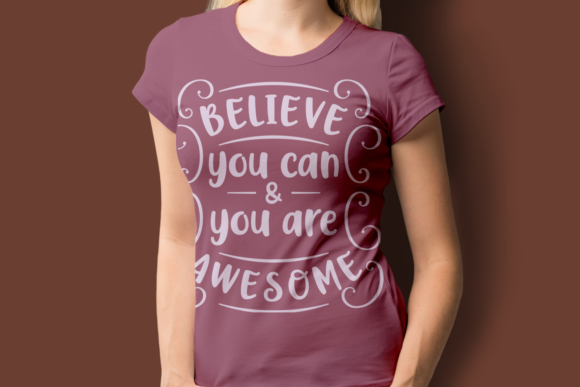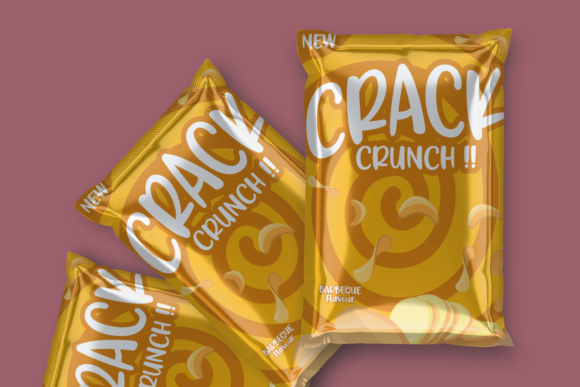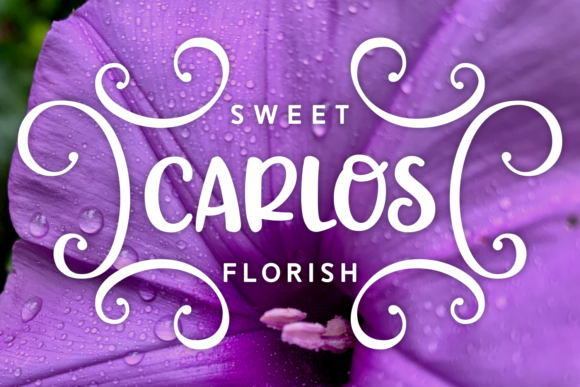
HomeScript FontsFirst Teacher Font Script Fonts First Teacher Font FacebookXPinterestWhatsApp First Teacher Font Poster 2 First Teacher Font Poster 3 First Teacher Font Poster 4 About First Teacher Font First Teacher is a fun and whimsical font. It is perfect for adding life and energy to a variety of projects. DOWNLOAD ON CREATIVE FABRICAThis font is sold and delivered by Creative Fabrica. Font Canyon may earn a commission if you buy through this link. People also explored Richat Font YWFT Estée Color Hause Font Christian Font Bedoyo Font Jealousy Font Eye Mutelu Font Content Creator – Playful Typeface Adventure Font 387 0 TagsFirst Teacher Font Previous articleKattrina FontNext articleInverness Font LEAVE A REPLY Cancel reply Comment: Please enter your comment! Name:* Please enter your name here Email:* You have entered an incorrect email address! Please enter your email address here Website: Save my name, email, and website in this browser for the next time I comment. Personal Use Free Satori Personal Use Free Read more about this font Pretender Personal Use Free Read more about this font Kitsor Rauttie Personal Use Free Read more about this font Adeline Personal Use Free Read more about this font BLOG Transform Your Website: Elevate Your Typography with 7 Best Web Font Generators Are you ready to transform your website's typography from ordinary to extraordinary? Great! Today, we're diving into the world of web font generators, which... Free Fonts Risk: Why Free Fonts Can Be Dangerous for Designers Top 7 Google Fonts Alternatives for Faster and Privacy-Friendly Web Design (2025) Free vs Paid Fonts: Why Investing in Premium Fonts Is Worth It